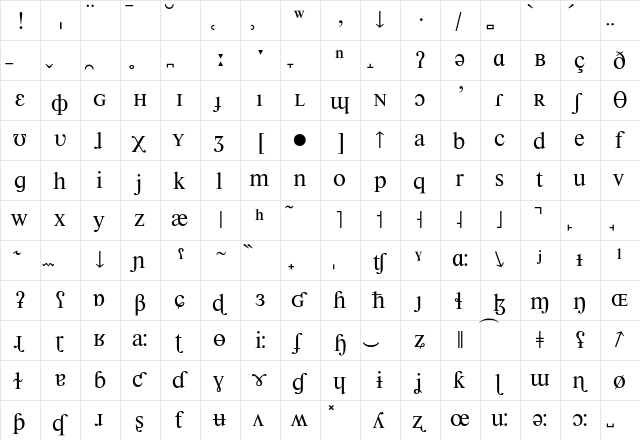
NewtonPhoneticC Regular Font Preview
NewtonPhoneticC Regular
NewtonPhoneticC Regular Font Details
Design Context for NewtonPhoneticC Typeface
NewtonPhoneticC is a composed and adaptable typeface that performs quietly and consistently across a wide range of design contexts.